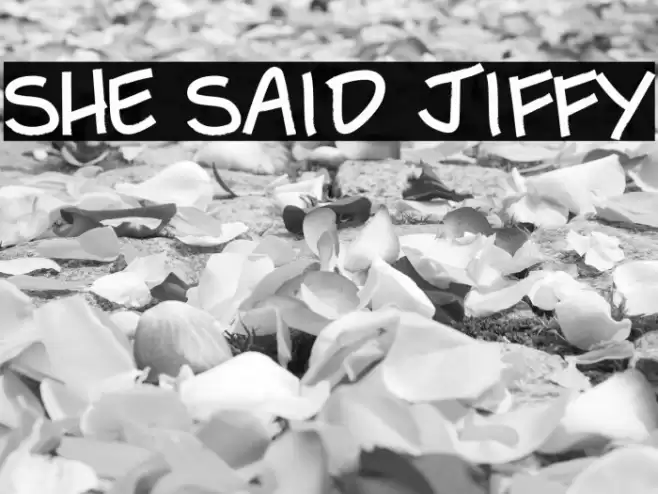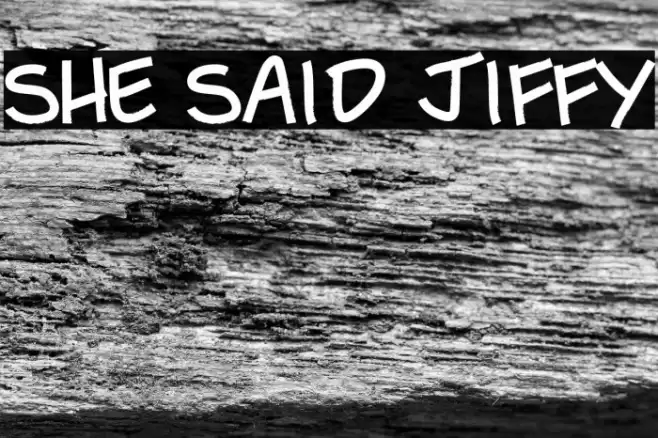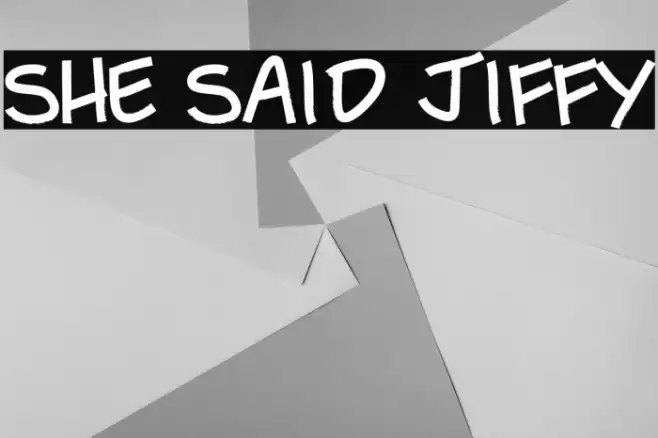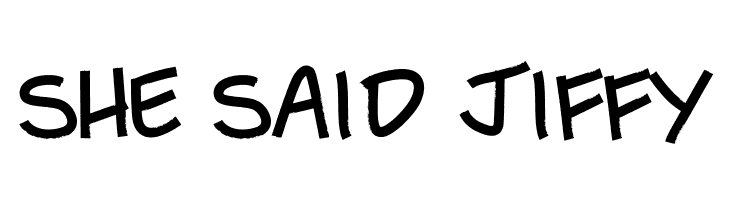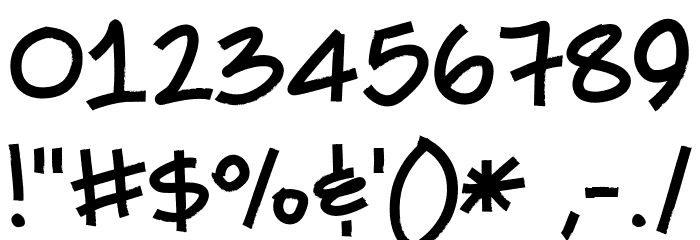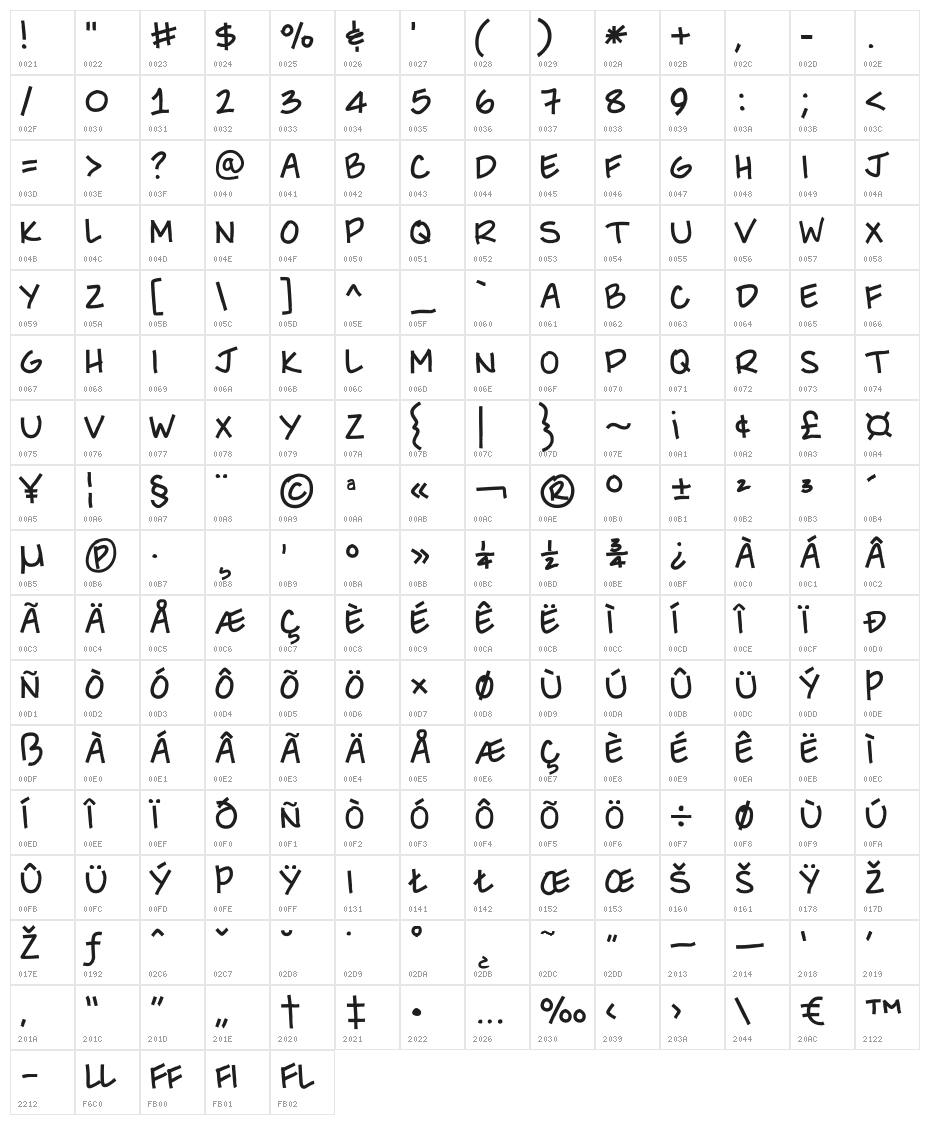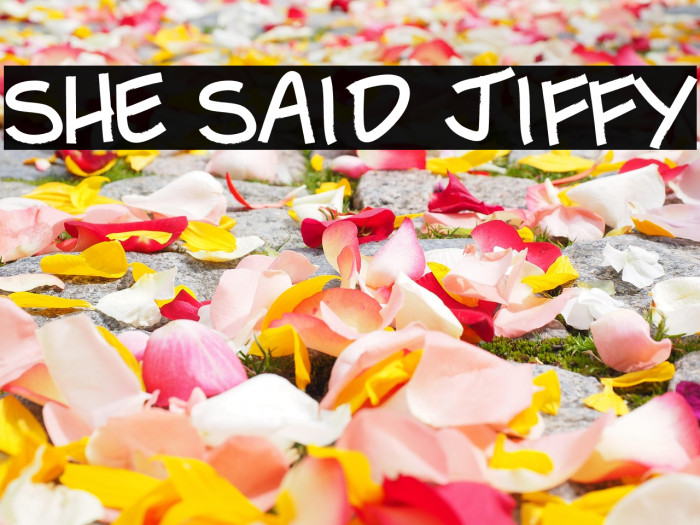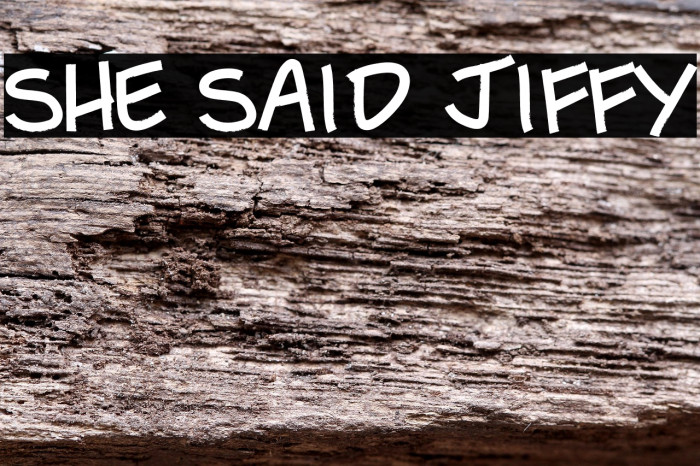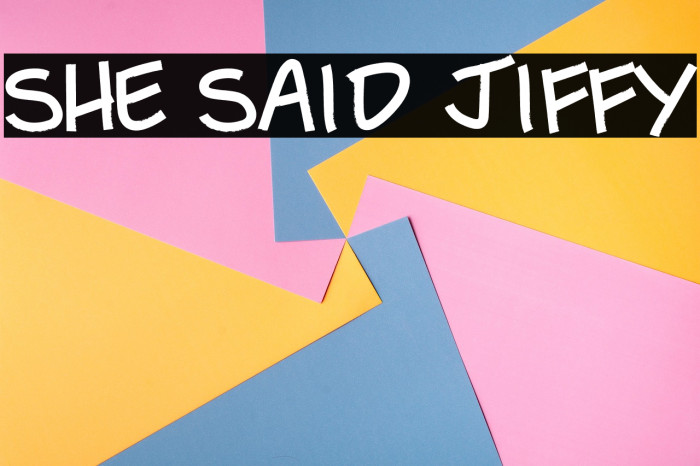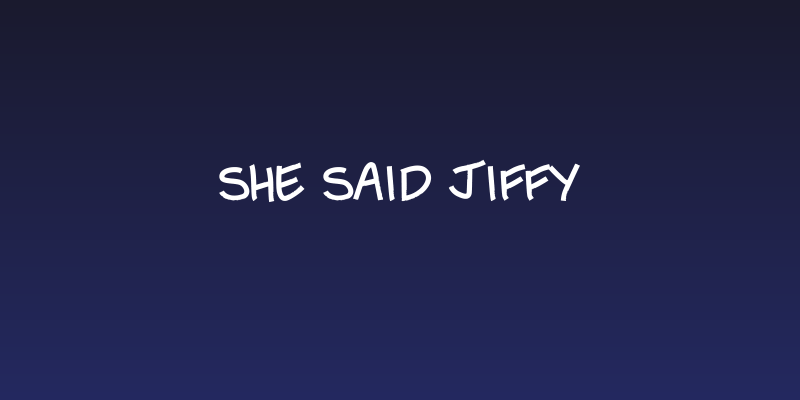
She Said Jiffy Font
She Said Jiffy Description
This font features a playful and energetic handwritten style, characterized by its bold and slightly irregular strokes. The letters have a casual, informal appearance, with a slight slant that adds to the dynamic feel. The uppercase and lowercase letters maintain a consistent style, with rounded edges and a slightly exaggerated width that enhances readability. The numerals and special characters follow the same playful design, making them suitable for a variety of creative applications. The overall look is friendly and approachable, making it ideal for projects that require a personal touch.
A playful, bold handwritten font with a casual and dynamic style from Uncategorized fonts.
- Proposed Projects: Ideal for greeting cards, children's books, playful branding, and social media graphics.
- Overall Style: Playful
- Use Case: Headlines, Logos, Informal Text